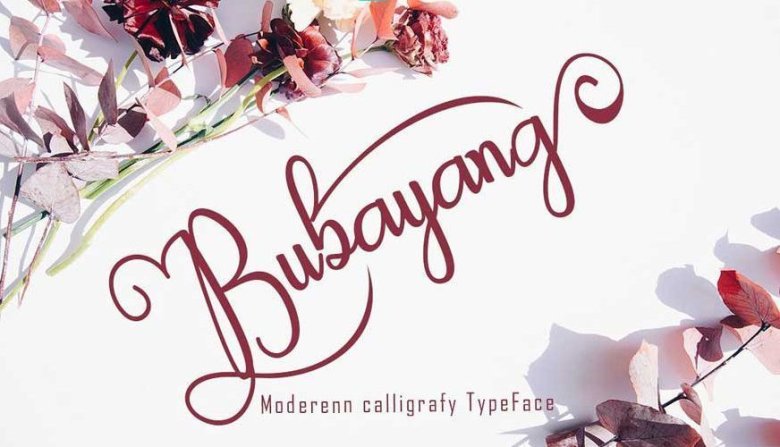
Bubayang Font
Bubayang Modern Calligraphy. This font was designed by handwriting, and it has a modern and unique forms of calligraphy, the writing style is very natural.
Bubayang has a very unique style of calligraphy, it is very suitable for use in the work of modern design.